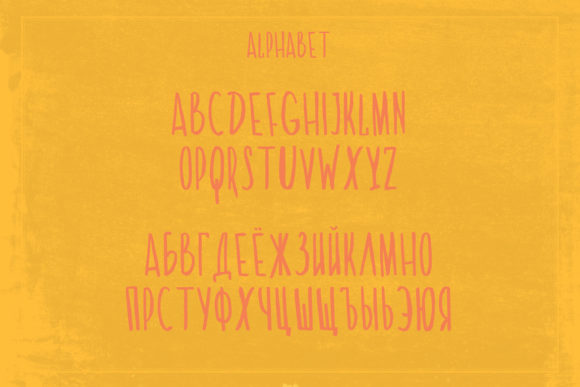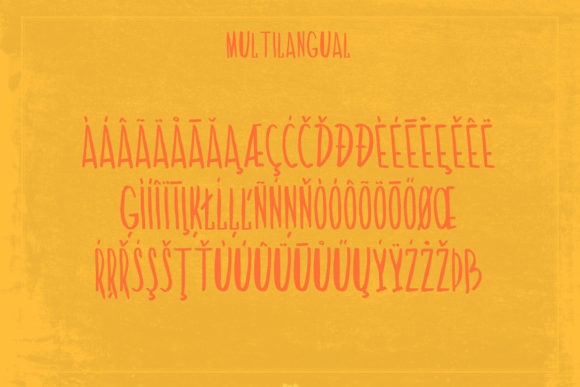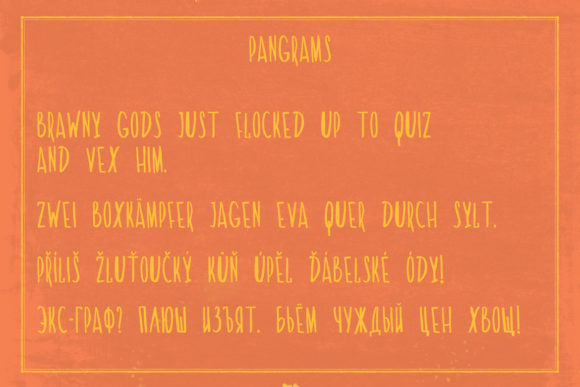
Fissure Font: A Dry Brush Texture Display Font for Creative Designs
Are you a designer or crafter looking for a unique and creative font to elevate your visual projects? Look no further than Fissure Font, a stunning display font with a dry brush texture made from a marker. This font is perfect for adding a personal touch to your designs, and its versatility makes it suitable for a wide range of applications.
What is Fissure Font?
Fissure Font is a display font that features a distinctive dry brush texture, giving it a hand-crafted and organic feel. The font is made to resemble the look of a marker, adding a touch of authenticity to your designs. With its bold and expressive strokes, Fissure Font is sure to grab attention and make your designs stand out.
Key Features of Fissure Font
• Uppercase Letters: Fissure Font includes a full set of uppercase letters, perfect for creating bold and eye-catching headlines.
• Numerals & Glyphs: The font also includes numerals and glyphs, making it a comprehensive and versatile font for a wide range of design applications.
• Dry Brush Texture: The dry brush texture gives Fissure Font a unique and organic feel, perfect for adding a personal touch to your designs.
• Marker-Inspired: The font’s marker-inspired look adds a touch of authenticity to your designs, making them look hand-crafted and unique.
Use Cases for Fissure Font
Fissure Font is a versatile font that can be used in a variety of design applications, including:
• Logo Design: Fissure Font is perfect for creating bold and eye-catching logos that make a statement.
• Product Branding: The font’s unique texture and marker-inspired look make it ideal for product branding, adding a touch of personality to your products.
• Text Overlay: Fissure Font can be used as a text overlay font for any background image, adding a bold and expressive touch to your designs.
Why Choose Fissure Font?
With so many fonts available, why choose Fissure Font? Here are just a few reasons why designers and crafters love this font:
• Unique Texture: The dry brush texture of Fissure Font is unlike any other font, giving your designs a unique and eye-catching look.
• Versatility: Fissure Font is a versatile font that can be used in a wide range of design applications, from logo design to text overlay.
Tips for Using Fissure Font
Here are a few tips for getting the most out of Fissure Font:
• Experiment with Colors: Fissure Font looks great in a variety of colors, so don’t be afraid to experiment and find the perfect color for your design.
• Play with Texture: The dry brush texture of Fissure Font is a key part of its charm, so try combining it with other textures for a unique look.
• Use it Sparingly: Fissure Font is a bold and expressive font, so use it sparingly to add emphasis to your designs.
Fissure Font is a unique and versatile display font that is perfect for designers and crafters looking to add a personal touch to their designs. With its dry brush texture and marker-inspired look, Fissure Font is sure to grab attention and make your designs stand out. Whether you’re creating a logo, product branding, or text overlay, Fissure Font is a great choice.